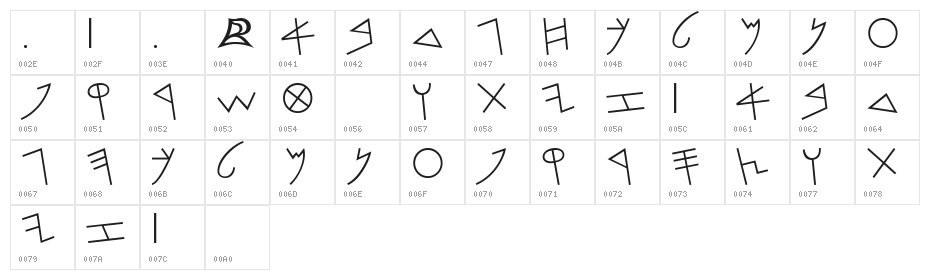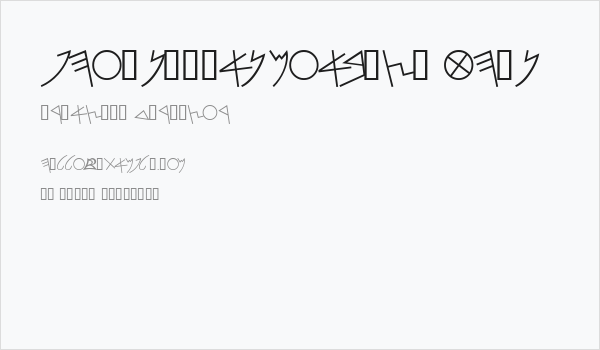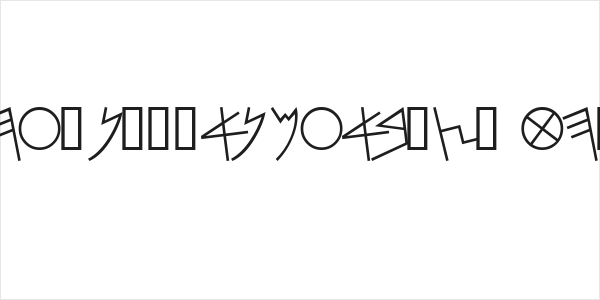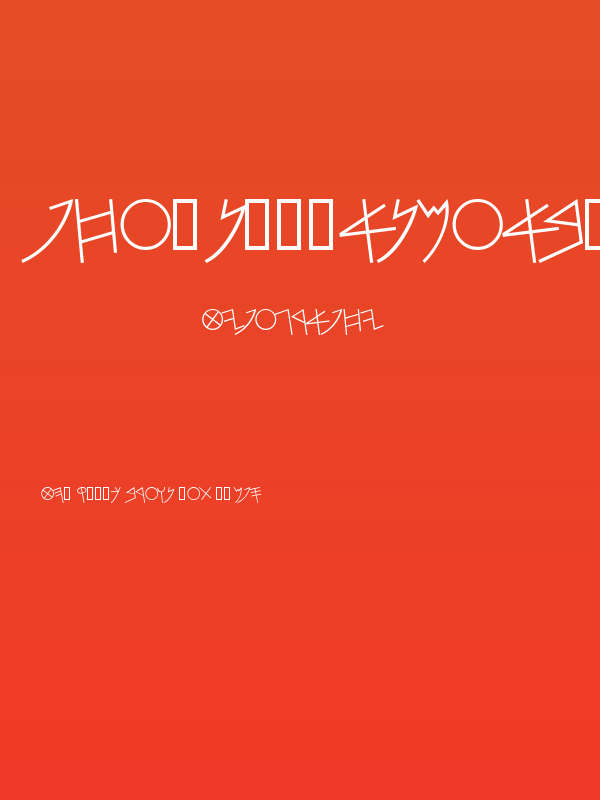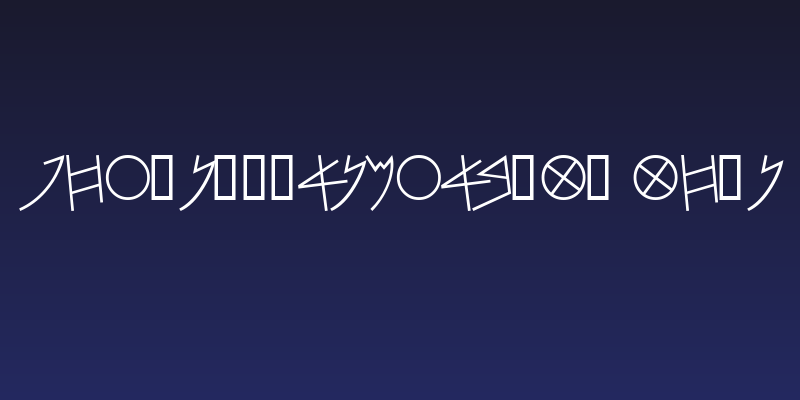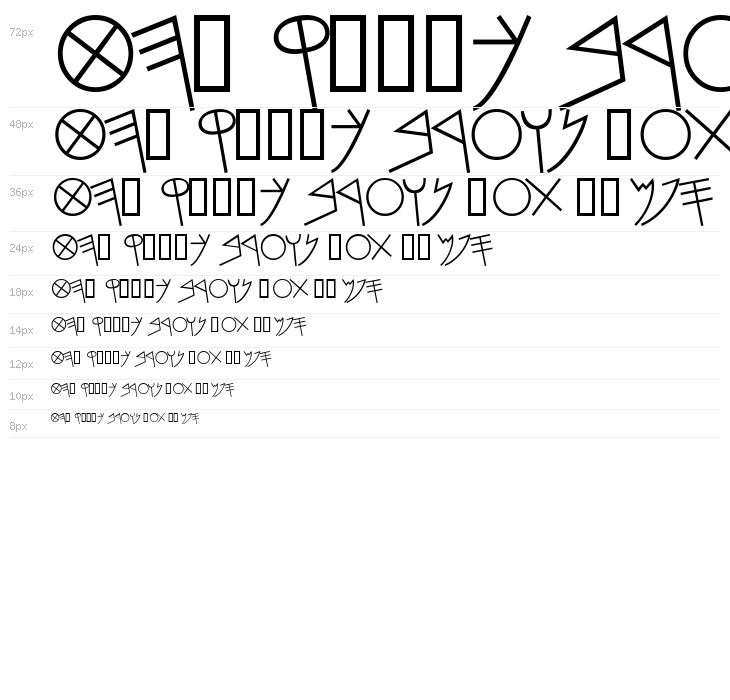
PhoenicianMoabite Thin Font
PhoenicianMoabite Thin Description
This font features an ancient script style reminiscent of historical Phoenician and Moabite inscriptions. The characters are angular and geometric, with a distinct emphasis on vertical and diagonal lines. The strokes are thin, giving the font a delicate and intricate appearance. The design is highly stylized, with each letterform possessing unique characteristics that reflect an ancient aesthetic. The font captures the essence of early writing systems, making it suitable for projects that require a historical or archaeological theme. Its thin strokes and angular shapes create a sense of authenticity and antiquity.
| Use Case | Logos, Display text, Themed projects |
| Proposed Projects | Ideal for historical documents, archaeological exhibits, educational materials on ancient cultures, and themed graphic designs. |